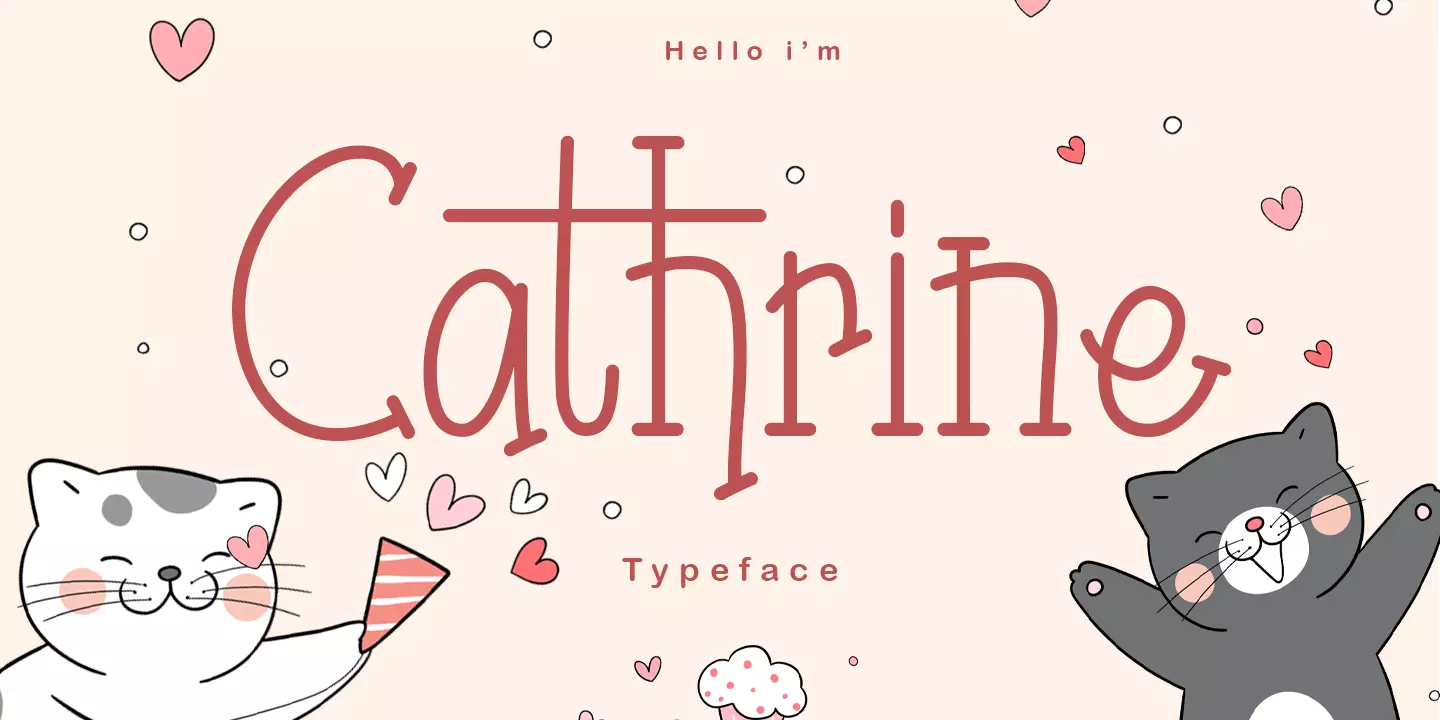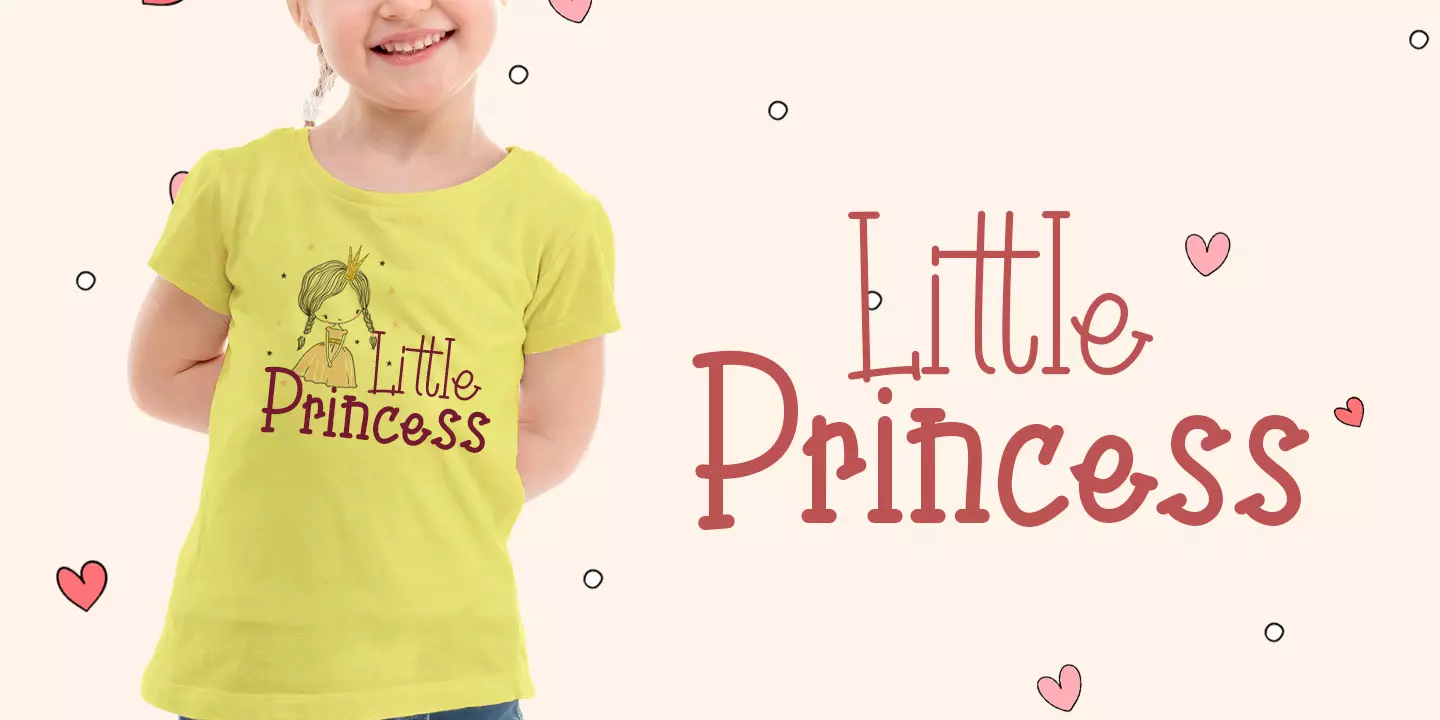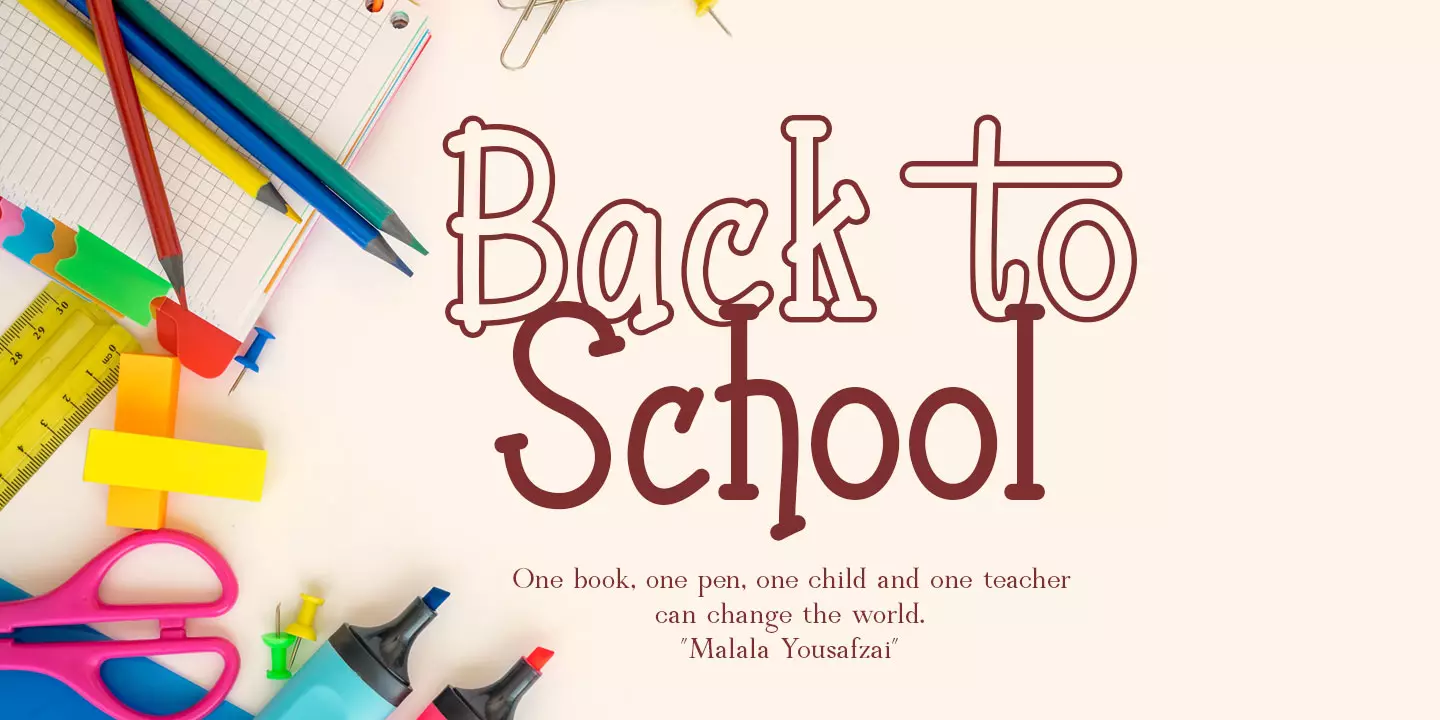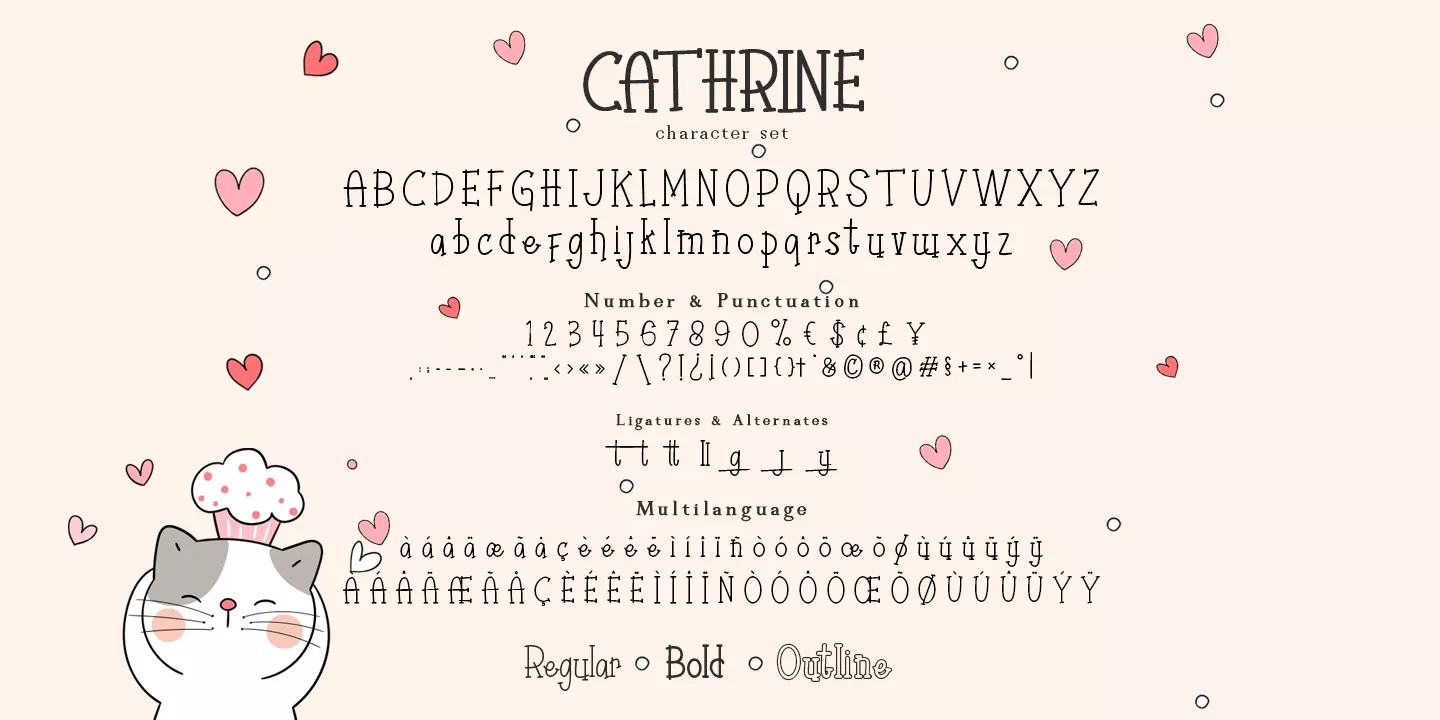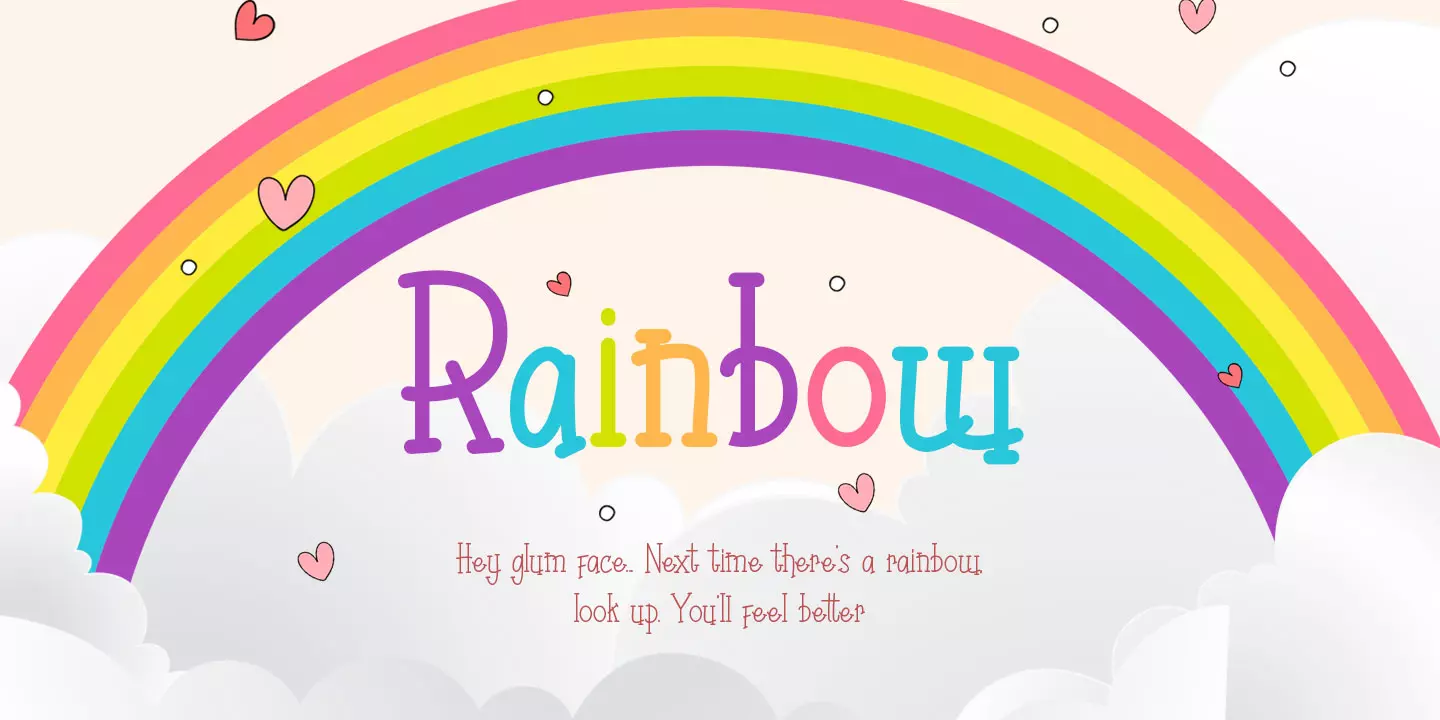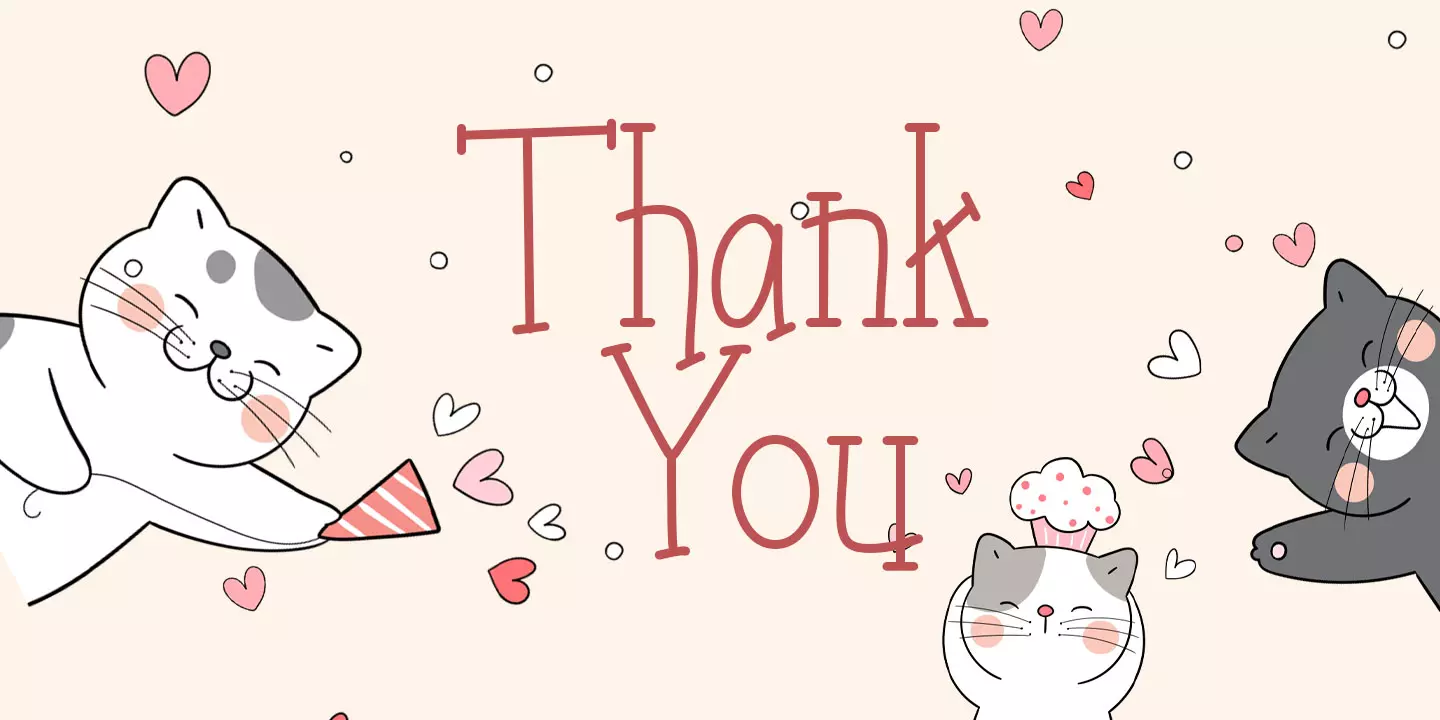
Cathrine
3 Styles
Say hello to Cathrine, simple, cute and funny that is cathrine. cathrine is a font made with happiness to make every design look more cheerful. Cathrine has 3 different styles including regular, bold and outline. This is made to give a choice of each style. Cathrine has a strict style, but still gives a cheerful impression, so it is very easy to read and apply in all design projects such as poster designs, children’s clothes, logos, quotes, album covers, children’s books, business cards, product designs, and many more design projects. Cathrine has its own charm when used. We make this font look funny, easy to remember, and easy to use.